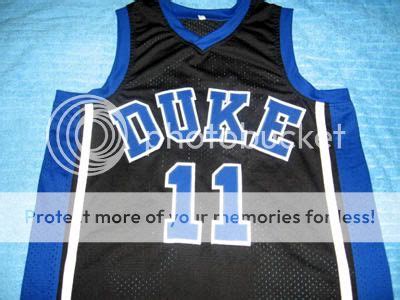
Duke Jersey Font: The Ultimate Guide
Hey guys, ever wondered about that iconic font you see on Duke University jerseys ? You know, the one that screams “Go Blue Devils!”? Well, you’re in the right place! Today, we’re diving deep into the Duke University jersey font , exploring its history, its design, and why it’s become such a recognizable symbol in the world of college sports. It’s more than just letters; it’s a piece of Duke’s rich athletic heritage. We’ll break down what makes this font so special, how it’s evolved over the years, and even touch on where you might be able to find similar fonts for your own projects. So, grab your favorite Duke gear, and let’s get started on this awesome journey into the typography of champions!
The History and Evolution of the Duke Font
Let’s rewind the tape and talk about the history of the Duke University jersey font . It’s not like they just woke up one day and decided on a font. Oh no, this bad boy has a story! Originally, Duke’s athletic branding, including the fonts used on their jerseys, went through various iterations, just like any other long-standing institution. Early on, you might have seen simpler, more classic block styles that were common for the era. However, as Duke’s athletic programs, especially basketball, started gaining national prominence, the need for a distinct and powerful visual identity grew. The font needed to be bold, legible from a distance (think roaring crowds and TV screens!), and representative of the university’s prestige. Over the decades, this specific font has been refined, tweaked, and polished to become the version we know and love today. It’s a testament to thoughtful design and a commitment to maintaining a consistent brand image. The evolution wasn’t about chasing trends, but about perfecting a look that is Duke. It’s about creating a visual language that speaks volumes about the spirit and tradition of the Blue Devils. Each subtle change was likely made to enhance readability, improve the overall aesthetic on the jersey, or simply to align with updated branding guidelines. This meticulous process ensures that the Duke font remains timeless, powerful, and instantly recognizable, connecting generations of fans and athletes alike. It’s a font that carries the weight of championships, legendary players, and unforgettable moments, making it far more than just a typeface – it’s a symbol of pride and excellence.
Deconstructing the Duke Jersey Font: Key Features
Alright, let’s get down to the nitty-gritty of the Duke University jersey font . What exactly makes it tick? When you look at it, what stands out? Well, for starters, it’s a bold, sans-serif typeface . That means no little decorative feet (serifs) on the ends of the letters, giving it a clean, modern, and strong appearance. Think sharp, straight lines and a generally uniform stroke width. The letters themselves are typically uppercase, giving them that authoritative, in-your-face look that’s perfect for a sports jersey. You’ll notice a certain ‘blockiness’ to it, but it’s a refined blockiness. It’s not clunky; it’s athletic. The design prioritizes legibility , which is super important when you’ve got players running around and fans trying to read names and numbers from the nosebleed seats. The kerning – that’s the space between letters – is often adjusted to ensure maximum readability and a visually pleasing flow. Some might describe it as having a slightly condensed feel, allowing more letters to fit comfortably without looking cramped, which is ideal for longer player names. The overall impression is one of strength, tradition, and athletic prowess. It’s a font that doesn’t mess around; it gets the job done with style and impact. This isn’t just about aesthetics; it’s about functionality. The font needs to stand up to the rigors of athletic wear, being stitched or printed onto materials that move and stretch. The boldness ensures that the numbers and names pop against the jersey colors, making it easy for referees, announcers, and fans to identify players quickly. The simplicity of the sans-serif design also lends itself well to customization, allowing for unique variations or outlines that further enhance its visual appeal without sacrificing clarity. It’s a masterful blend of form and function, a true workhorse of sports typography that embodies the spirit of Duke athletics.
Why is the Duke Font So Iconic?
So, why has the Duke University jersey font achieved such iconic status? Guys, it boils down to a few key things. Firstly, consistency and tradition . Duke has stuck with a recognizable font style for a long time, especially for its major sports like basketball. This consistency builds familiarity and allows the font to become intrinsically linked with the university’s athletic identity. When you see that font, you think Duke. Secondly, association with success . Let’s be real, Duke has a storied history of athletic excellence, particularly in men’s basketball. Think Michael Jordan, Grant Hill, Zion Williamson – legendary players have worn jerseys bearing this very font. This association with winning, with legendary moments, and with iconic athletes imbues the font with a certain prestige. It’s not just a font; it’s a symbol of greatness. Thirdly, design effectiveness . As we talked about, the font is incredibly legible and bold. It looks good, it reads well, and it projects an image of strength and confidence. It’s a font that commands attention. Finally, brand recognition . In a world saturated with visual information, having a distinct and memorable brand element like a jersey font is crucial. Duke’s font is instantly recognizable, contributing significantly to their overall brand power. It’s a visual shorthand for everything Duke represents in the sports world: tradition, excellence, passion, and a little bit of that Cameron Crazie magic. This powerful combination of factors has elevated the Duke jersey font from mere typography to a bona fide cultural icon within collegiate sports, representing decades of athletic achievement and a passionate fanbase.
Finding Similar Fonts: For Your Own Projects
Now, you might be thinking, “This Duke font is awesome! How can I get something like that for my project?” While the exact official Duke font is proprietary and typically reserved for university use, there are plenty of great alternatives out there that capture a similar vibe. When you’re hunting for fonts that echo the Duke University jersey font , look for keywords like: bold sans-serif, athletic font, college font, block font, or sports font . Many foundries offer fonts that share those key characteristics: strong, clean lines, uppercase focus, and excellent legibility. Some popular choices that often come up in this category include fonts that are inspired by classic collegiate athletics or designed specifically for sports branding. You might find fonts with names that suggest strength and tradition. Exploring font libraries like Google Fonts, Adobe Fonts, or commercial sites like MyFonts or Fontspring will give you a huge selection. Try searching for terms like “varsity,” “champion,” “athletic,” or “block.” Remember to check the license for any font you choose, especially if you’re using it for commercial purposes. The goal is to find a font that offers that same sense of power, clarity, and athletic spirit that makes the Duke jersey font so special. It’s all about capturing that essence of competitive spirit and collegiate pride for your own designs, whether it’s for a t-shirt, a website, or a personal logo. Don’t be afraid to experiment and see what resonates best with your vision! You’re looking for that perfect balance of boldness and readability, a font that feels both classic and contemporary, just like the Duke brand itself. Happy font hunting, guys!
The Impact of Typography in Sports Branding
Let’s wrap this up by talking about the bigger picture: the impact of typography in sports branding . It might seem like just a small detail, but the font used on a jersey, a logo, or even a stadium sign has a massive effect. Think about it – the Duke University jersey font isn’t just there to tell you who’s playing; it’s part of the team’s identity, its story, and its emotional connection with fans. Great typography can evoke feelings of power, speed, tradition, or innovation. A clunky, hard-to-read font can detract from an otherwise impressive team brand, while a sharp, distinctive font can elevate it. Successful sports brands use typography strategically to communicate their values and create a lasting impression. It’s about more than just letters; it’s about creating a visual language that resonates with athletes and supporters alike. The font becomes a silent ambassador for the team, carrying its legacy and aspirations. This is why universities and professional teams invest so much time and resources into developing and maintaining their visual identities, including their signature fonts. They understand that in the competitive world of sports, every element counts towards building a powerful and enduring brand that inspires loyalty and captures the imagination. The right font can make a team feel more formidable, more relatable, or more iconic, solidifying its place in the hearts of its fans and in the annals of sports history. It truly is a powerful, yet often overlooked, element of athletic success and fan engagement.